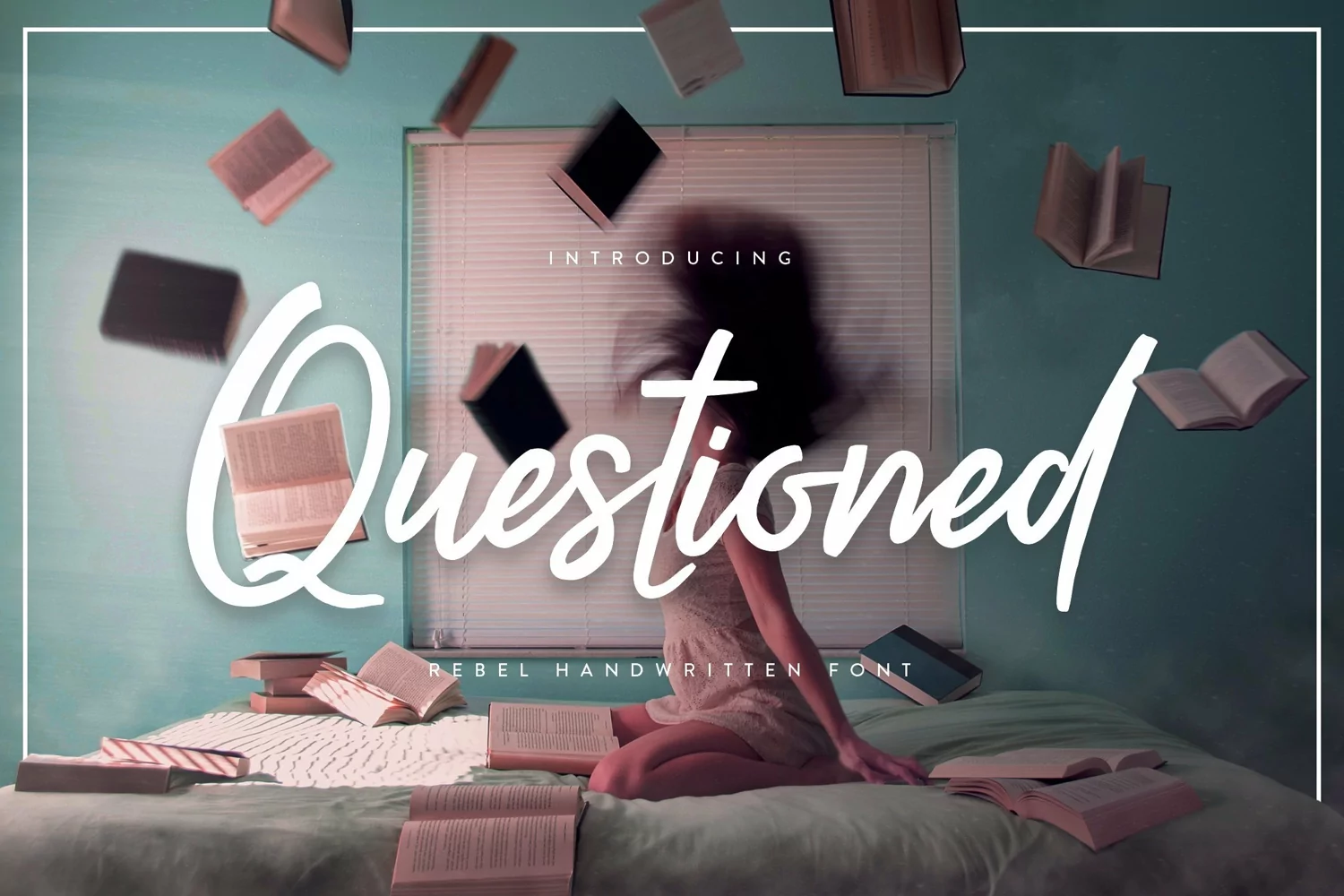
Questioned is a handwritten font which stands rebelliously off the page. With its energetic letters and quirky alternates, Questioned is a must have font for any collection!